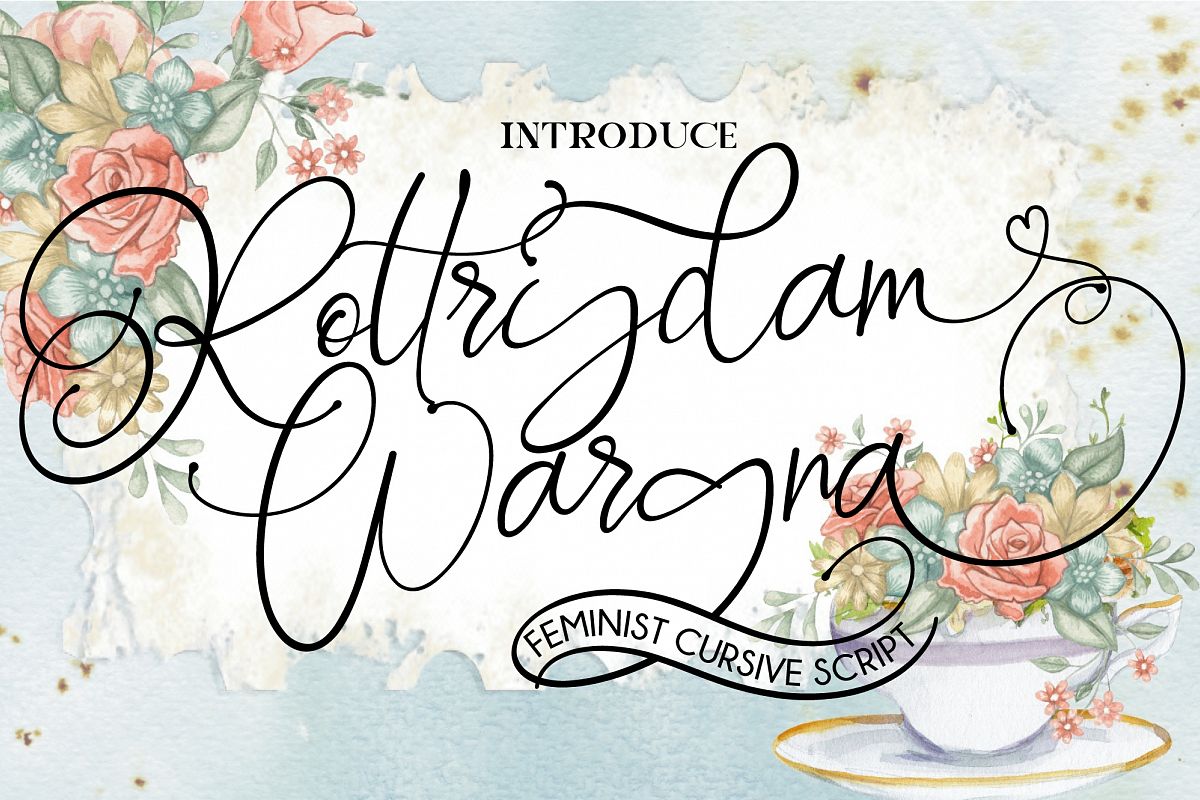
Rottrydam Wargna
Rottrydam Wargna a new fresh & modern script with a handmade calligraphy style, decorative characters . in this font script there are many alternative choices of characters from Swash Lowercase, SS01 to SS07. So beautiful on invitation like greeting cards, branding materials, business cards, quotes, posters, and more!!
• Standard Ligatures
• SS01-SS07